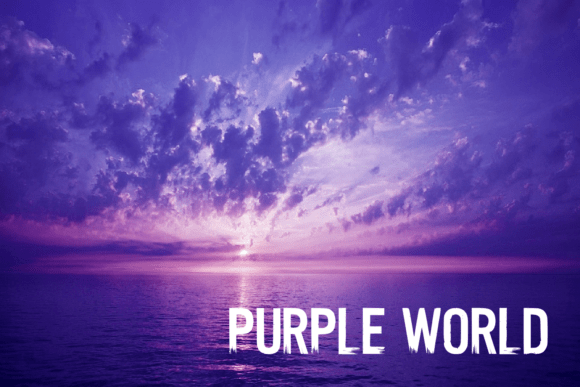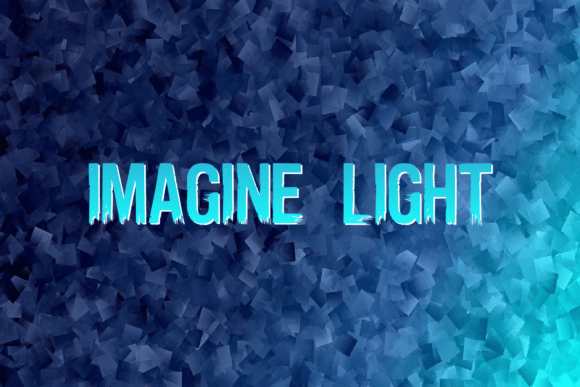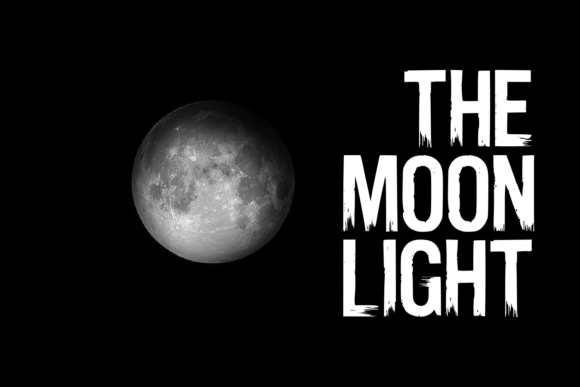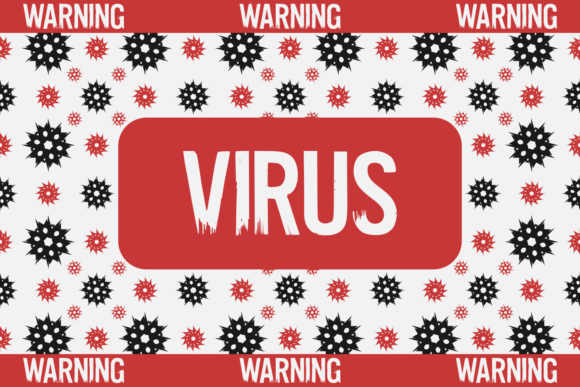
Introduction to Freedomscare Font
This is a horror and psychological thriller display font made to grab attention.
With sharp edges and eerie details, it adds a dark and intense feel to any design Perfect for posters, games, book covers, and more.